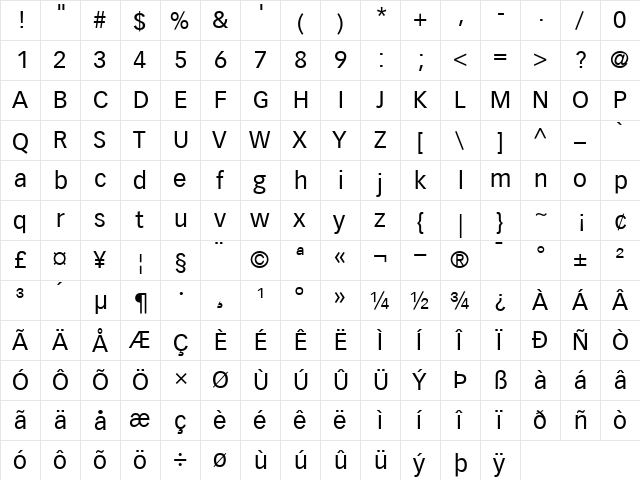
VectoraLH55Roman Roman
Design Context for VectoraLH55Roman Typeface
VectoraLH55Roman takes a measured approach to typography — its balanced proportions and neutral character make it a reliable workhorse for both digital and print work.